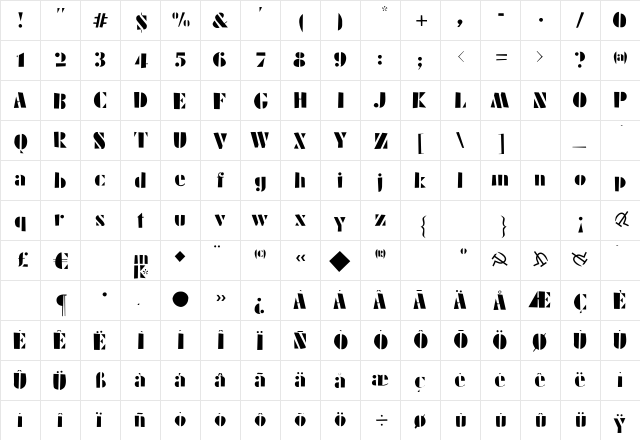
Schablonski-LessFat Regular
Design Context for Schablonski-LessFat Typeface
Schablonski-LessFat is a composed and adaptable typeface that performs quietly and consistently across a wide range of design contexts.